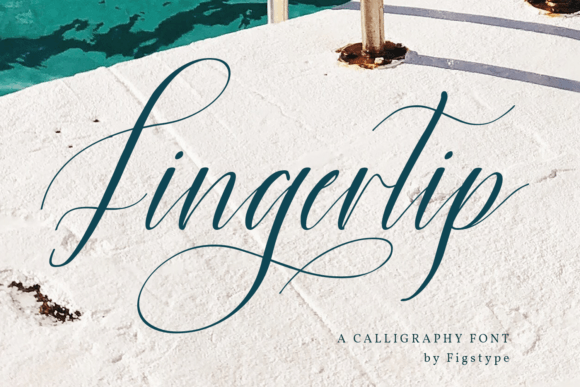
In a world of digital interaction, your words have the power to leave an indelible mark. Let your creativity shine with "Fingertip," a mesmerizing calligraphy font that captures the essence of modern elegance. This stunning script brings a touch of sophistication to any design, effortlessly blending traditional calligraphy with contemporary flair.
With its fluid strokes and sweeping curves, "Fingertip" offers a delightful dance of lines, creating an enchanting visual symphony. Each letterform is a masterpiece, crafted with precision to exude grace and charm. Delicate hairlines contrast beautifully with bold, confident strokes, resulting in a font that possesses both delicacy and strength.
"Fingertip" is a font that understands the power of expression. Its three swash variations provide endless opportunities to add a touch of drama and flair to your text. Whether you're designing wedding invitations, crafting logos, or creating social media graphics, this font will elevate your designs to new heights.
Beyond its aesthetic appeal, "Fingertip" is a practical choice for modern designers. It's PUA encoded, allowing you to effortlessly access a range of glyphs and ligatures, adding depth and nuance to your typography.
Embrace the beauty of handwritten artistry with "Fingertip." Its modern sophistication and timeless elegance will transform your creative projects into captivating works of art. Download it today and experience the allure of this extraordinary font!